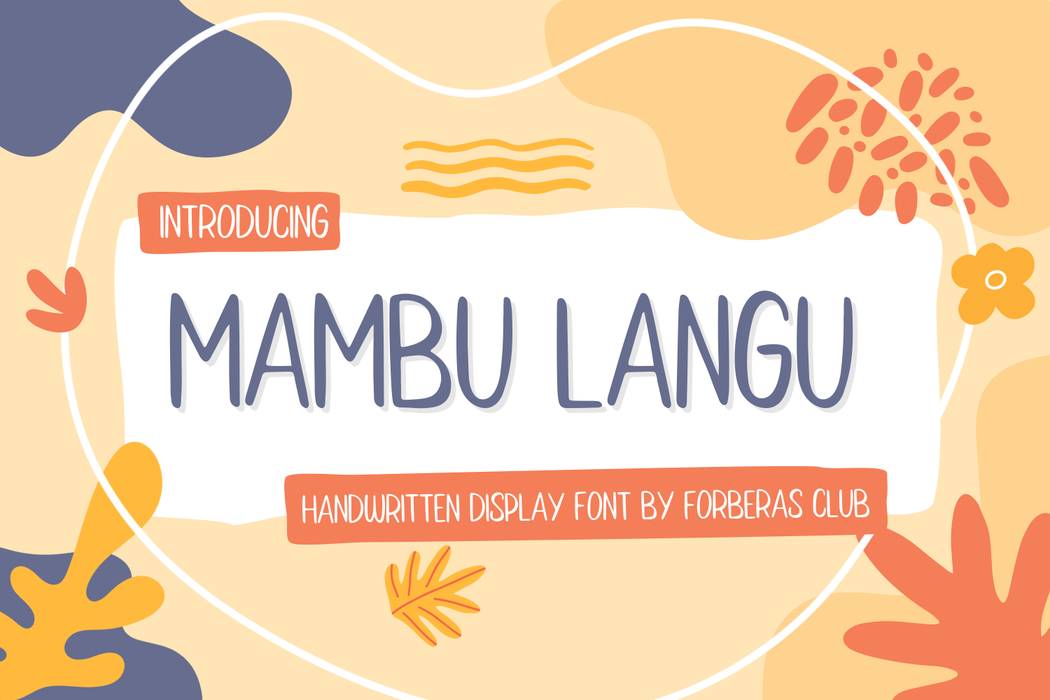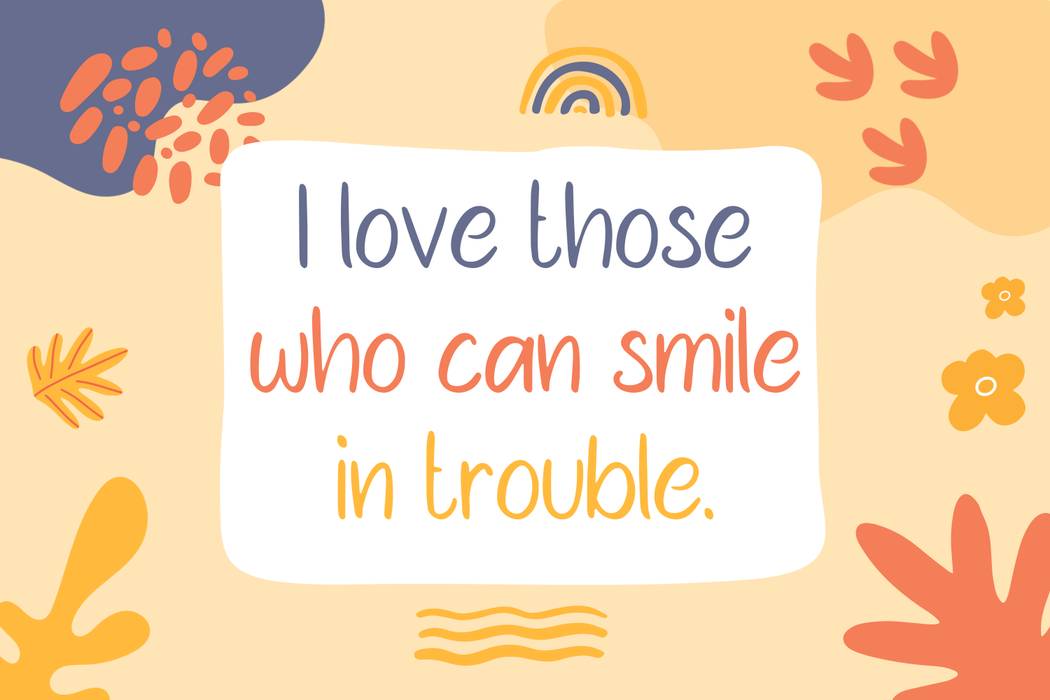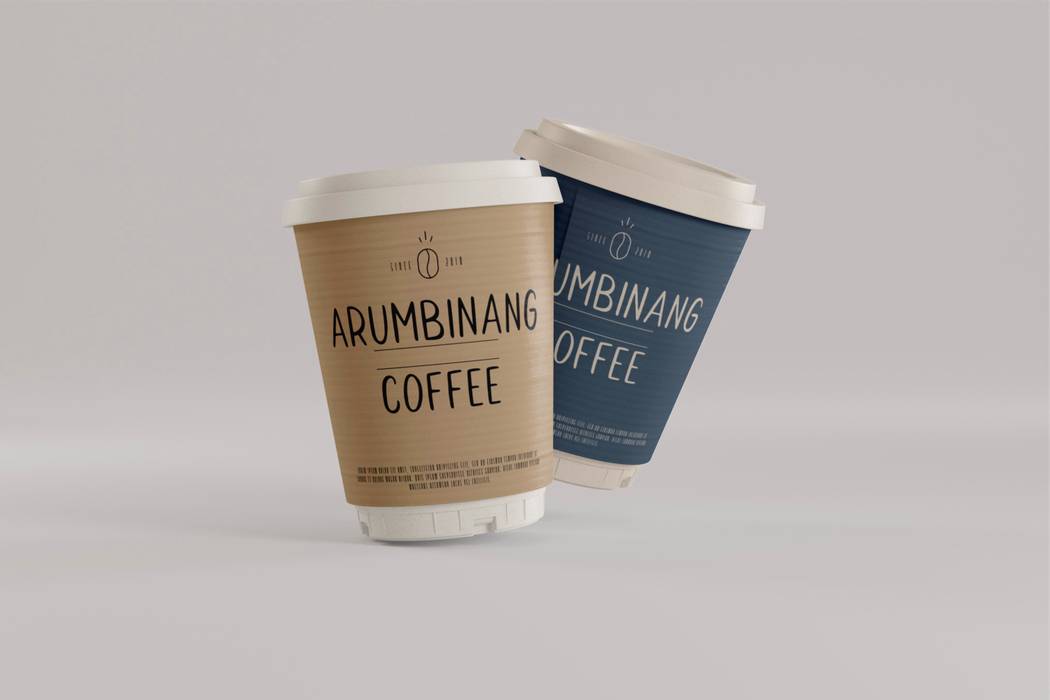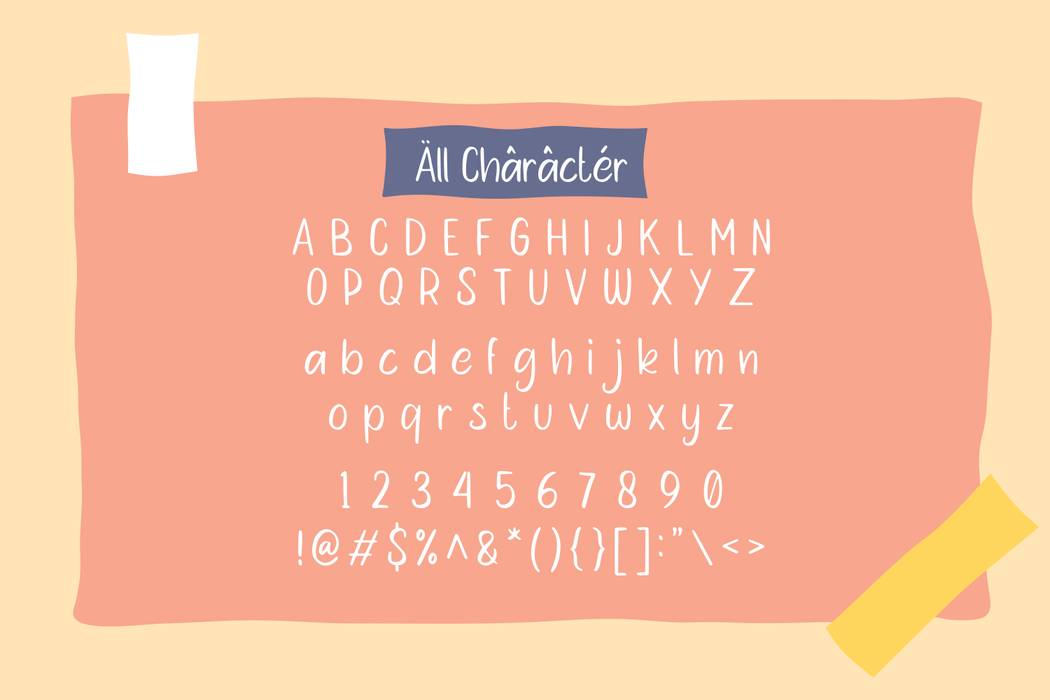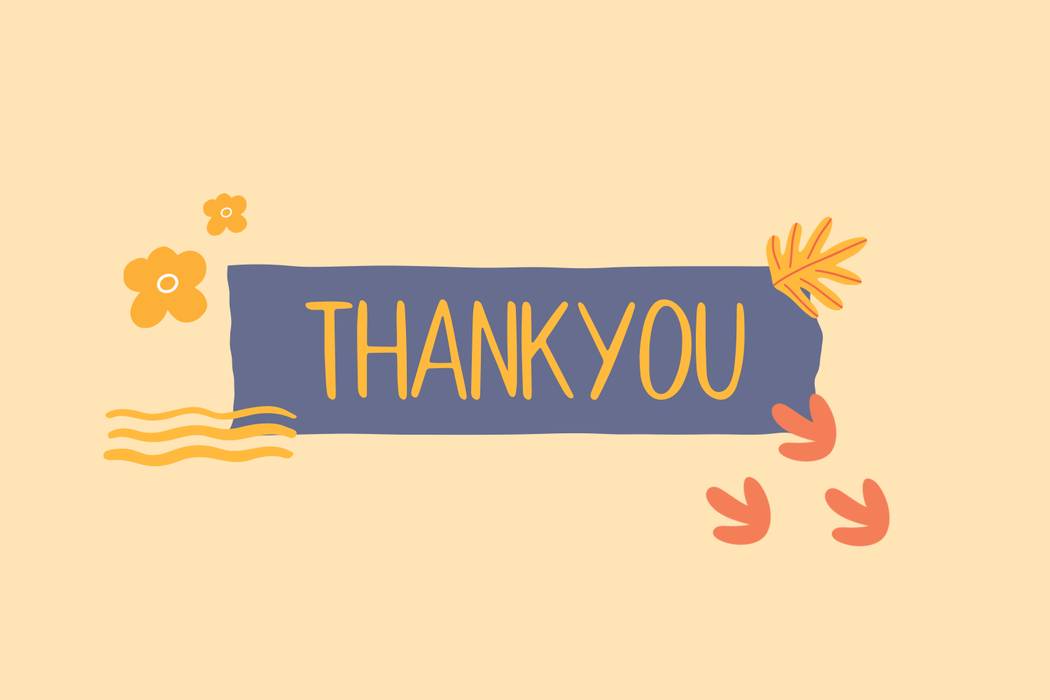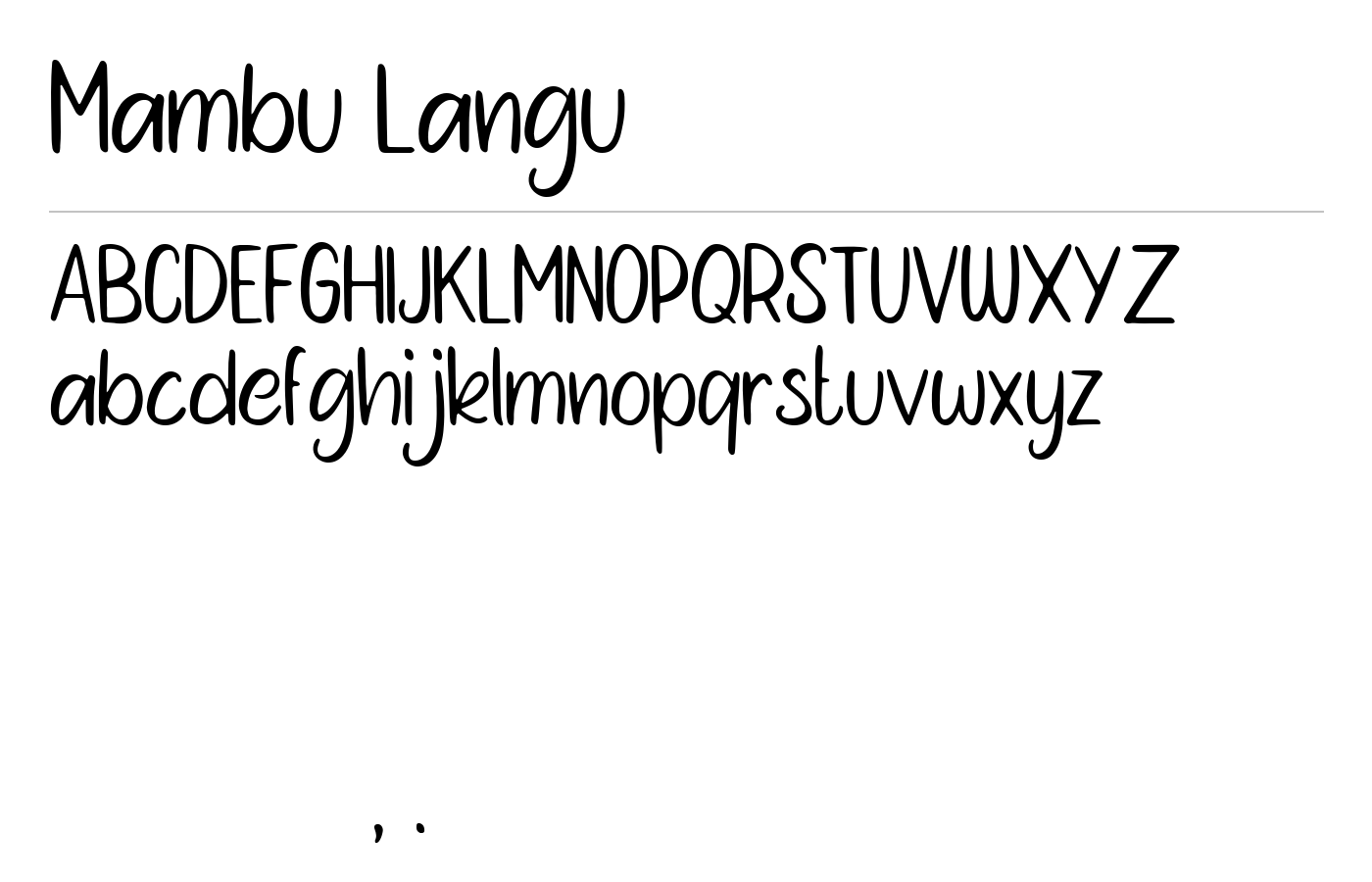
Mambu Langu is a playful, casual handwritten sans serif font characterized by its tall, narrow letterforms and smooth, rounded strokes. Its light weight and airy spacing give it a friendly and approachable feel, making it ideal for informal branding, children's books, and creative projects that seek a personal, hand-drawn touch. This font works well in headlines and short text where a warm, inviting personality is desired.
Mambu Langu Font
About Mambu Langu Font
| Font family | Mambu Langu Font |
| Designer | Forberas Club |